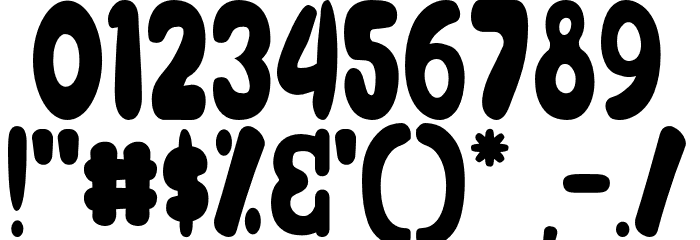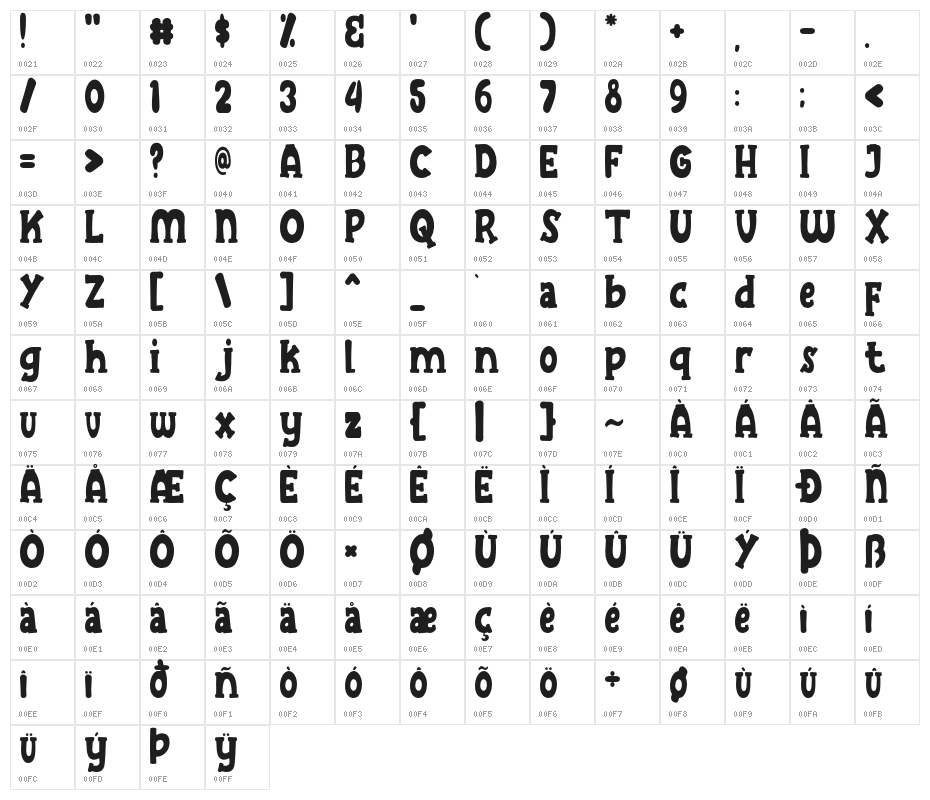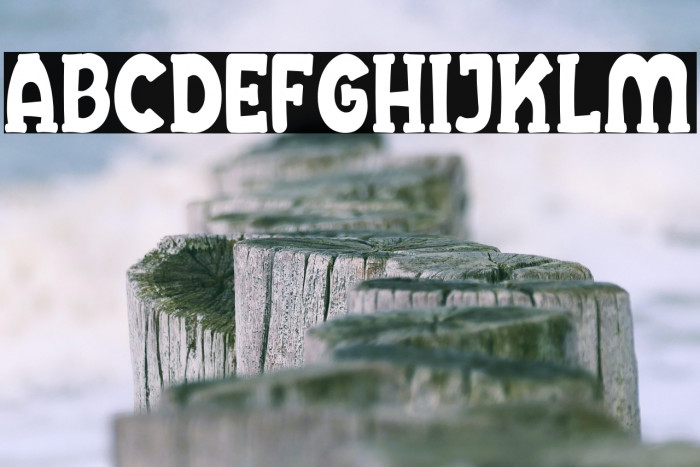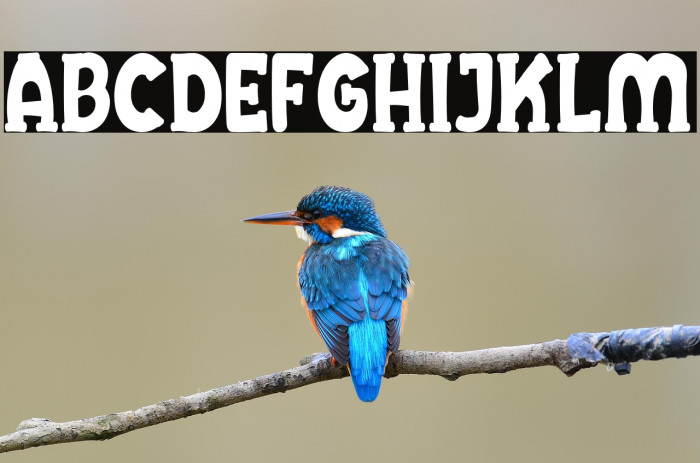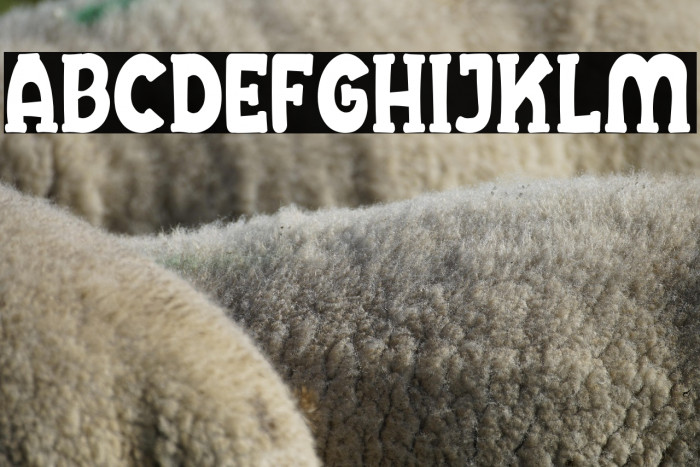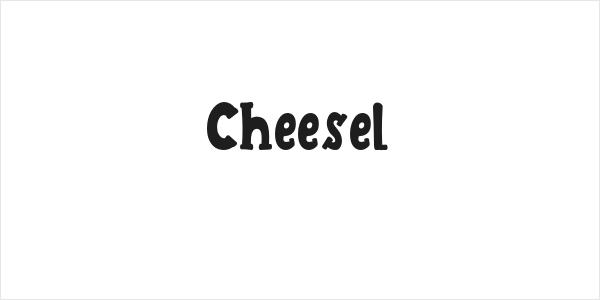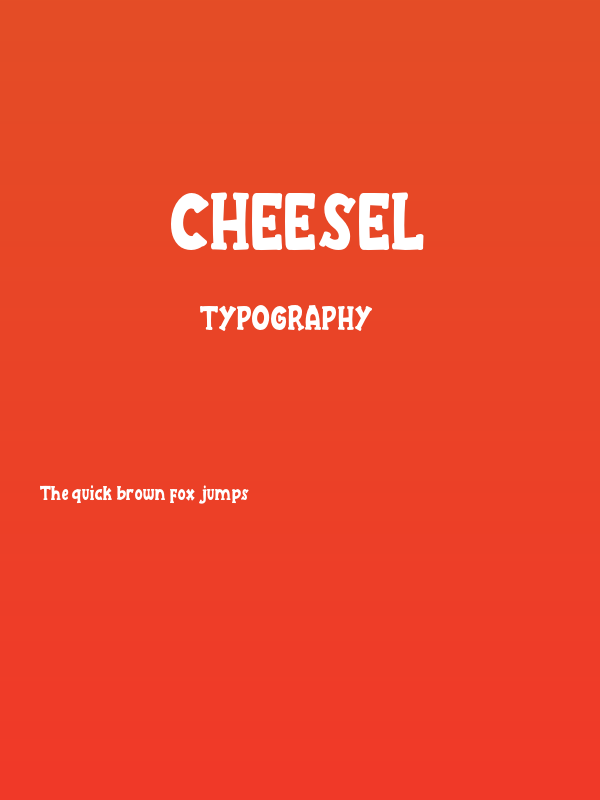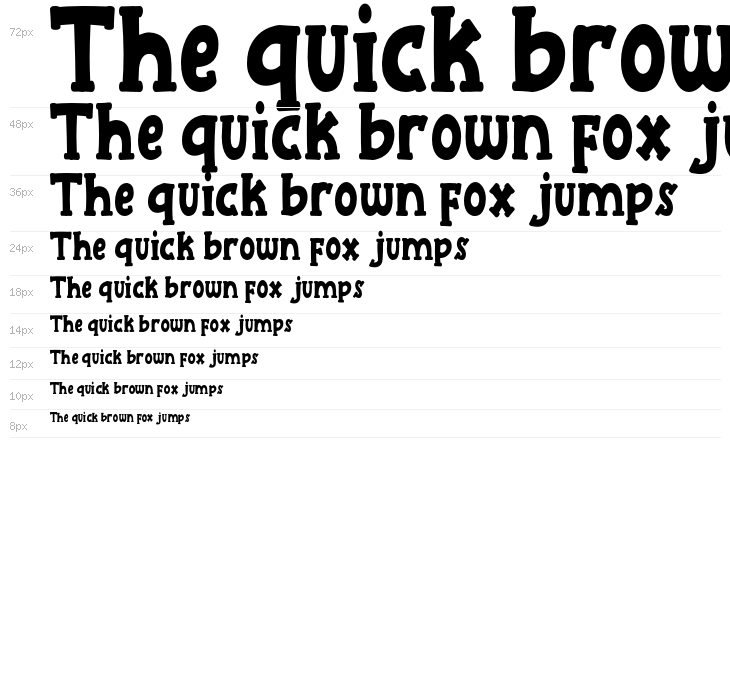
Cheesel Font
Cheesel Description
This playful and bold font features thick, rounded characters with a whimsical touch. The letters have a slightly uneven baseline, adding to their quirky charm. The uppercase and lowercase letters maintain a consistent style, with exaggerated curves and a friendly appearance. The numbers and special characters follow the same design principles, ensuring a cohesive look across all elements. This font's unique style makes it stand out, perfect for projects that require a fun and engaging visual impact.
| Proposed Projects | Ideal for children's books, playful branding, posters, and party invitations. |